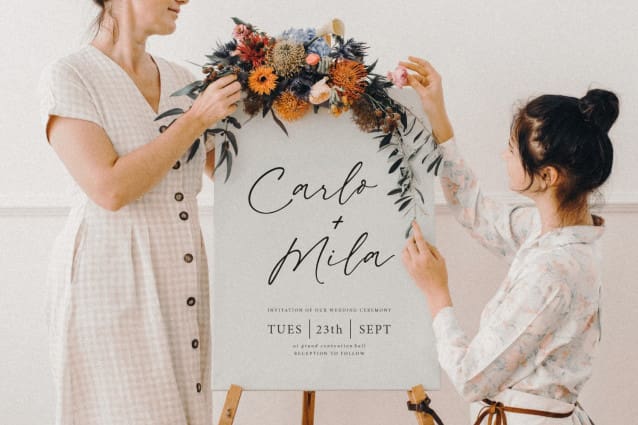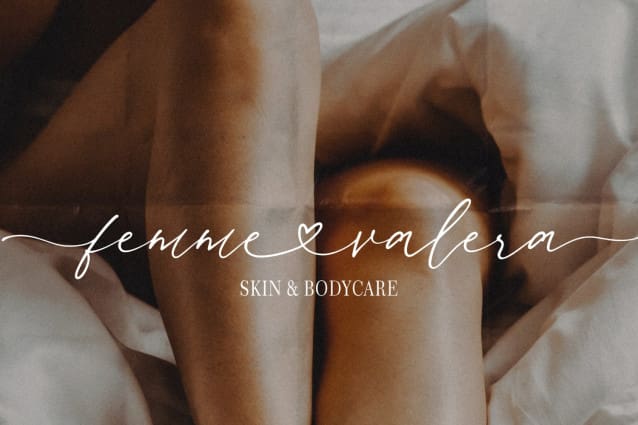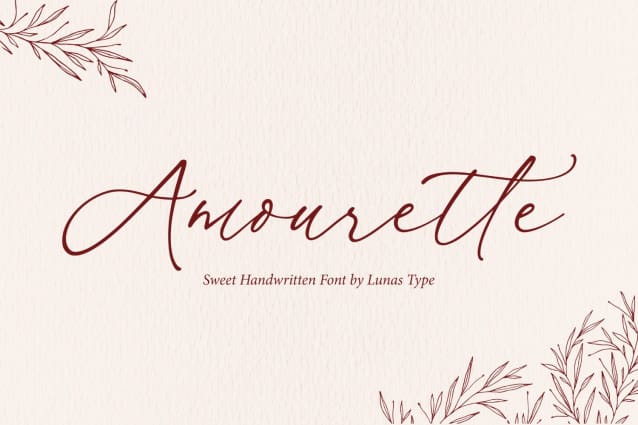
Amourette Script Font
Amourette Script Font, is a sweet and modern handwritten font. This sweet handwritten font invokes a feeling of nostalgia and warmth.
Amourette comes with begining swashes, ending swashes and also love swashes connection to add the perfect touch of your personality.
Amourette is perfect for many design needs such as merch, T-shirts, titles, wedding, book covers, social media posts, websites, events, and many more.